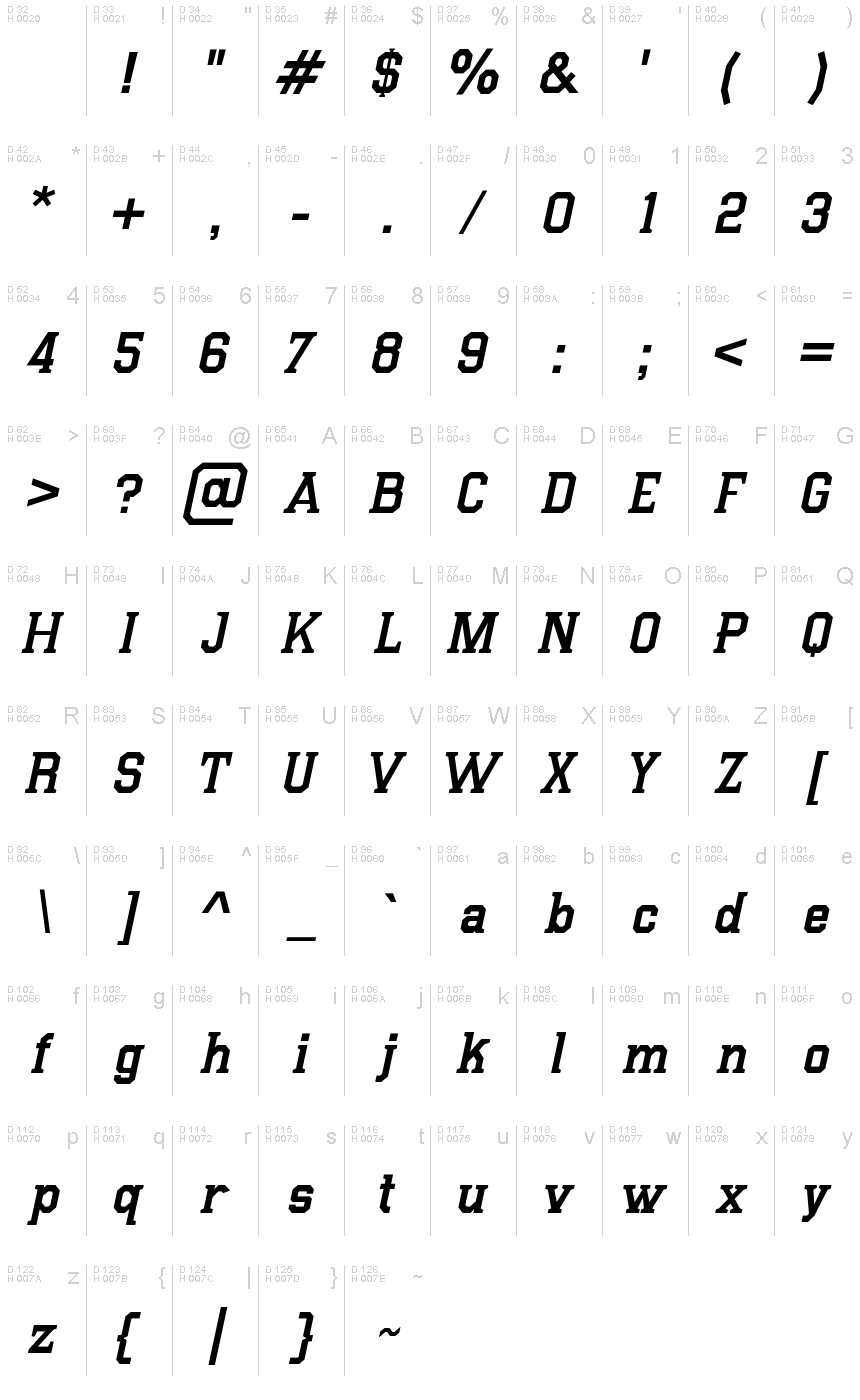
College Clean Italic
College Clean is an eye-catching display font that exudes a vintage, old-school charm. Designed by Galdino Otten, this italic typeface boasts a bold, robust construction with sharp, angular strokes that give it a distinct industrial aesthetic.
The font's clean and structured appearance lends itself well to a range of design applications, from retro-inspired branding and packaging to edgy event posters and editorial layouts.
With its strong, masculine presence and unique character, College Clean offers a captivating alternative to traditional serif or sans-serif fonts, making it a versatile choice for designers seeking to add a touch of vintage flair to their projects.
The font's clean and structured appearance lends itself well to a range of design applications, from retro-inspired branding and packaging to edgy event posters and editorial layouts.
With its strong, masculine presence and unique character, College Clean offers a captivating alternative to traditional serif or sans-serif fonts, making it a versatile choice for designers seeking to add a touch of vintage flair to their projects.